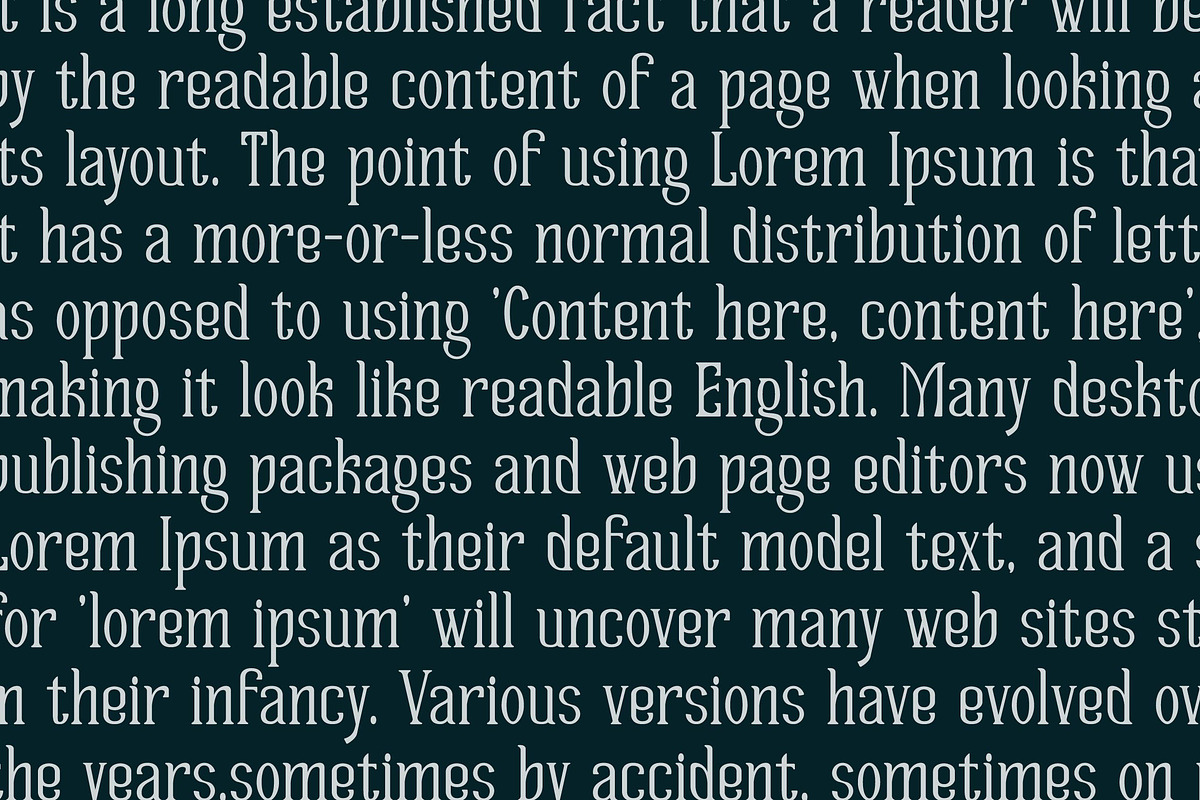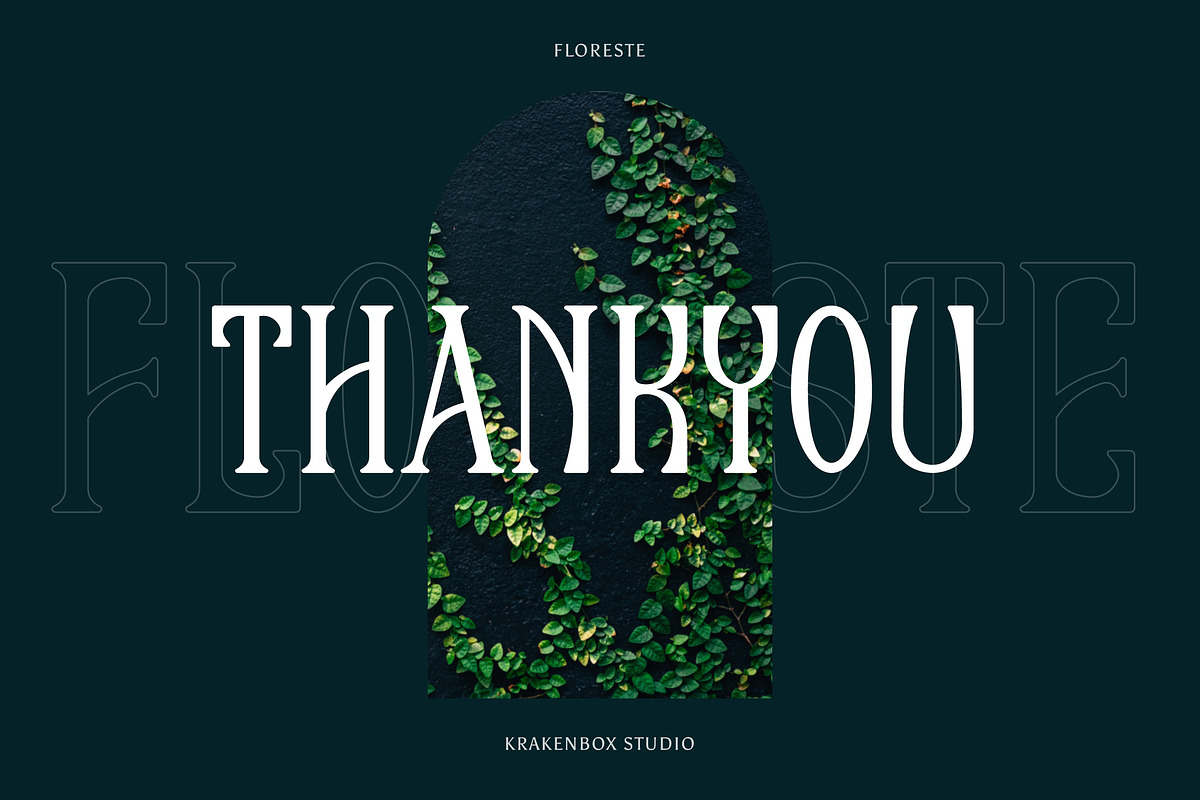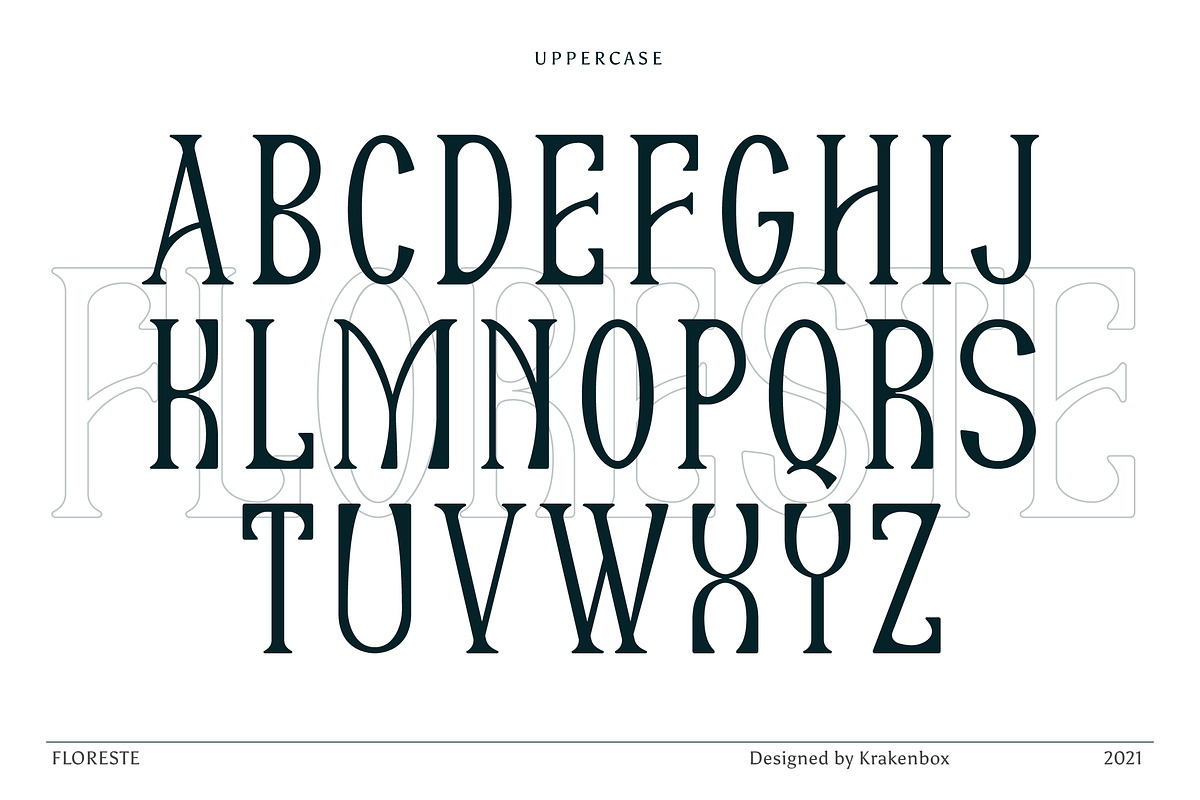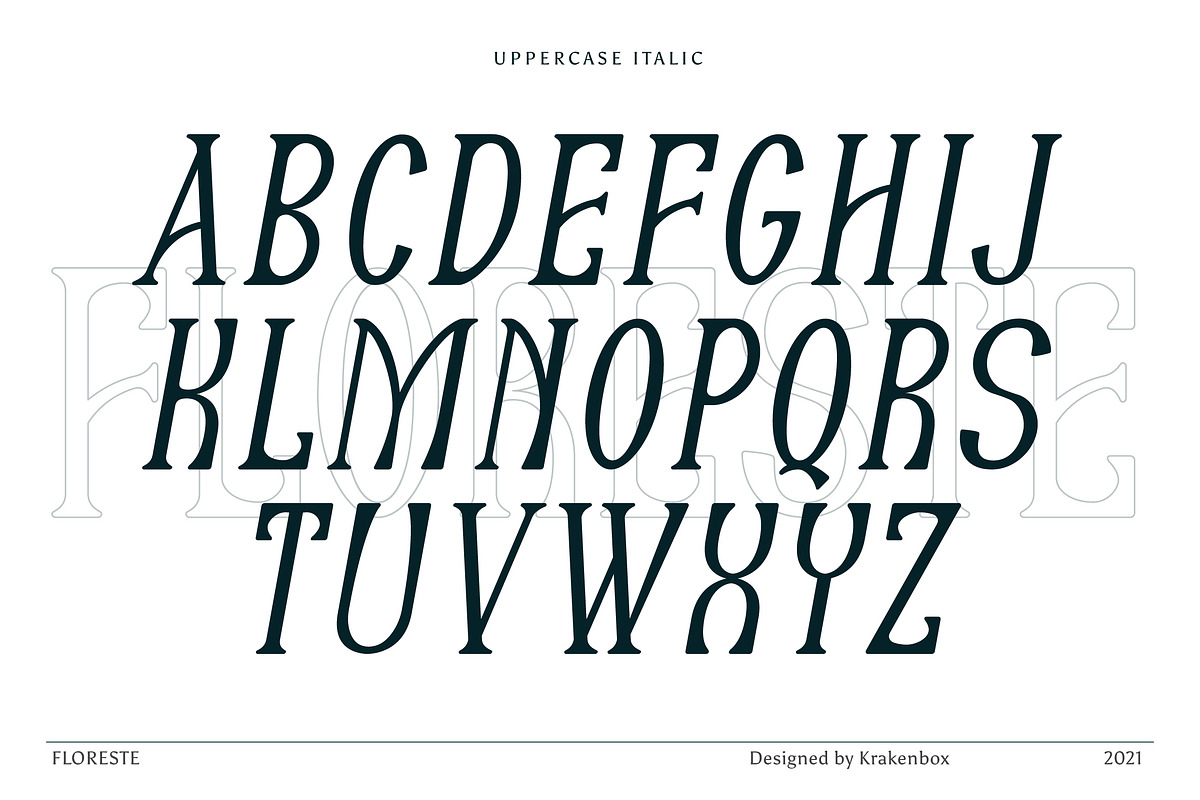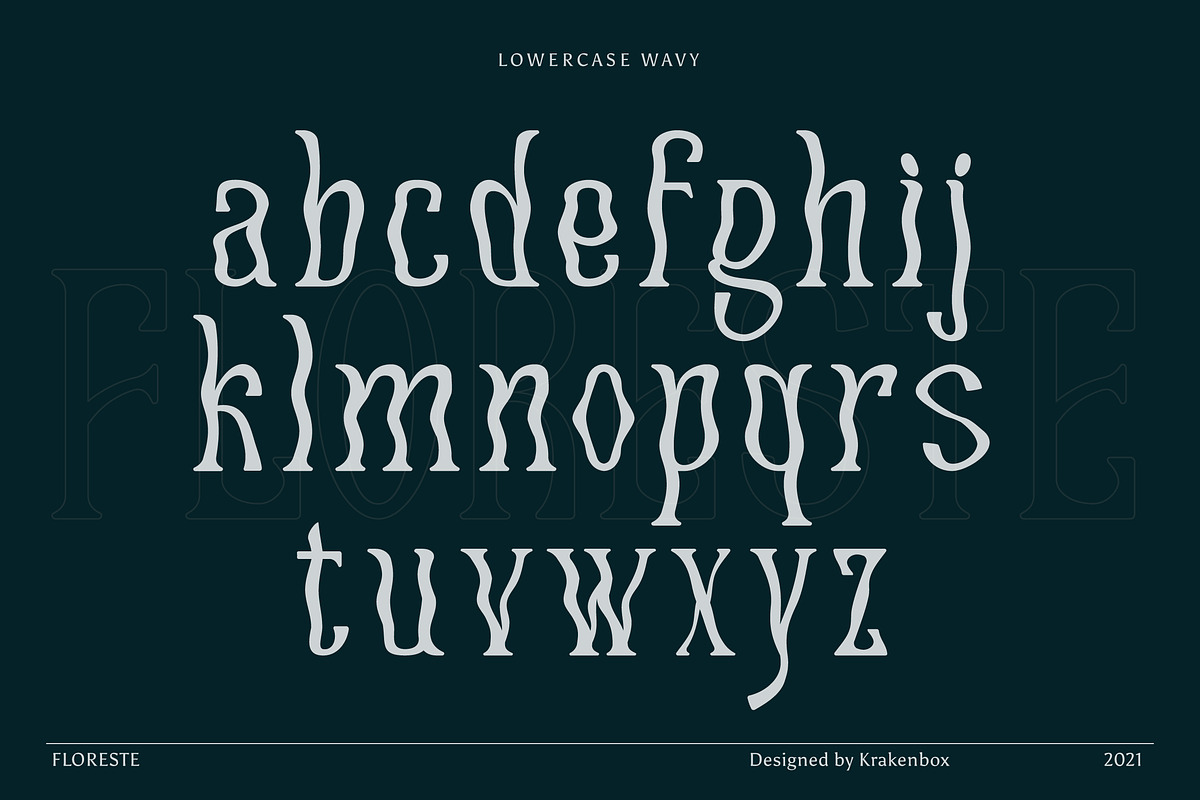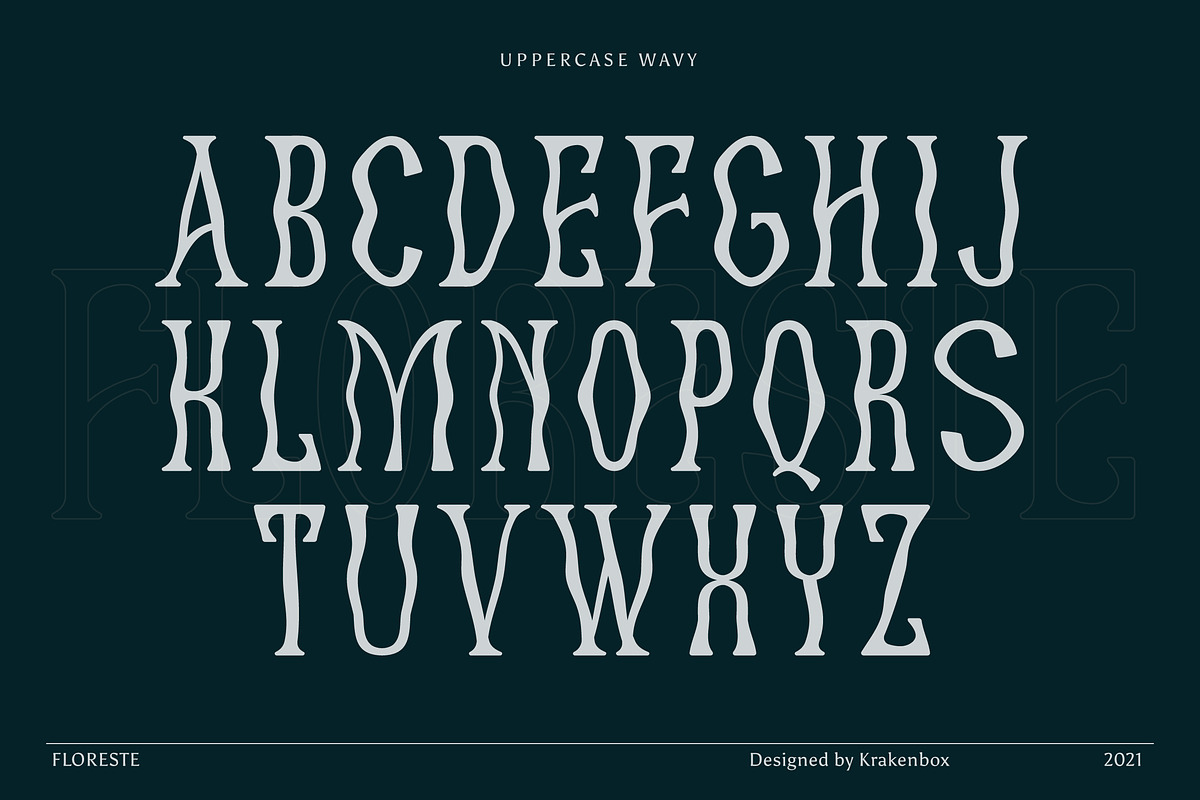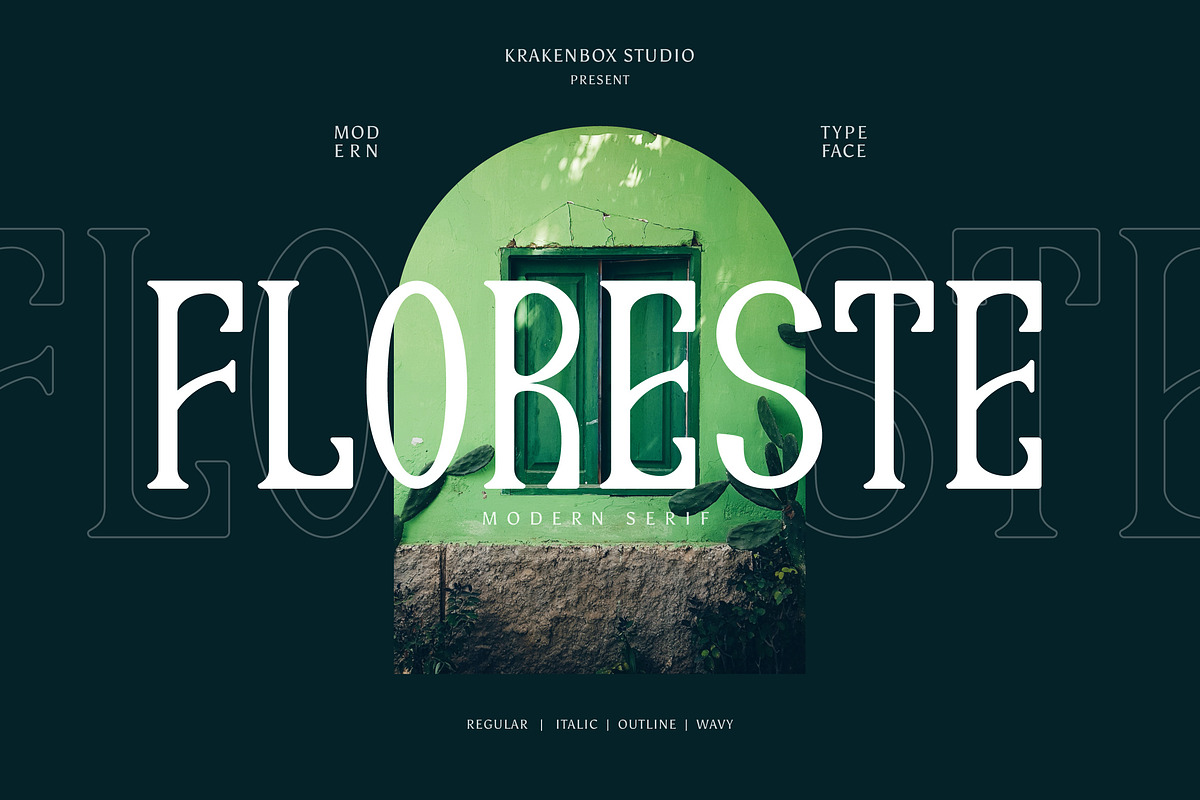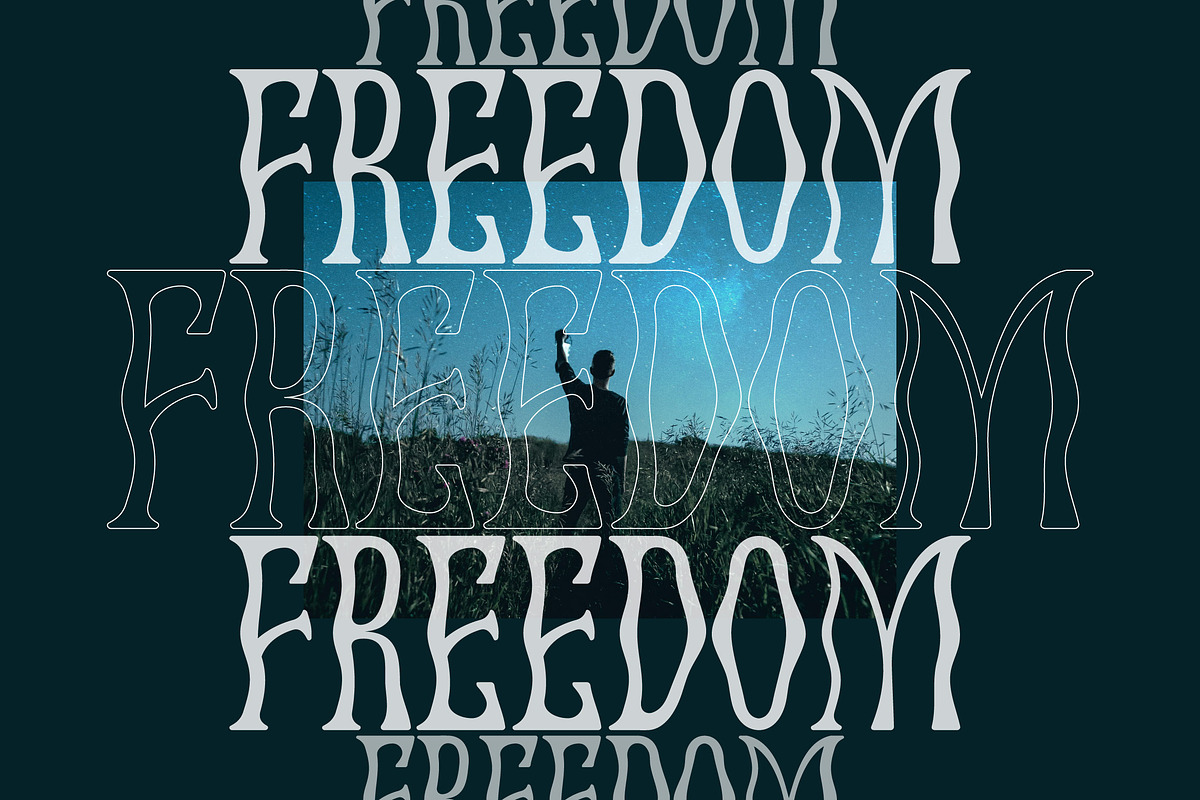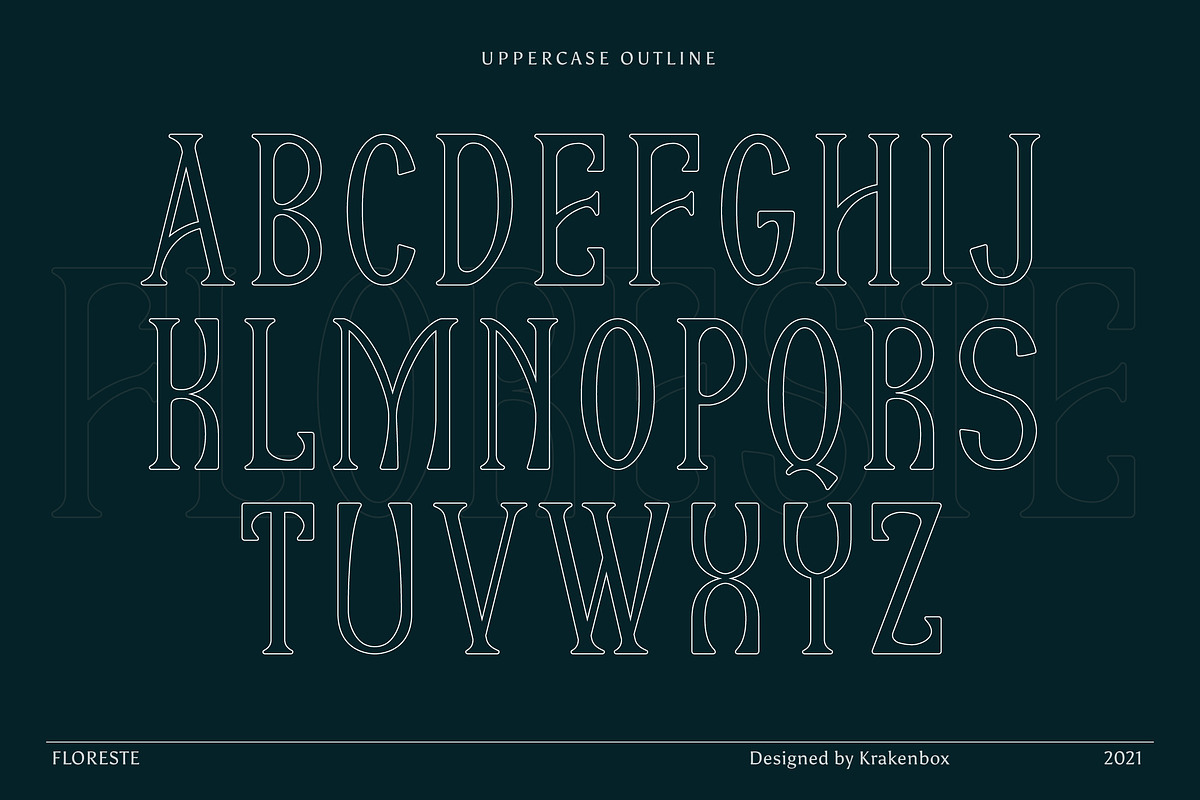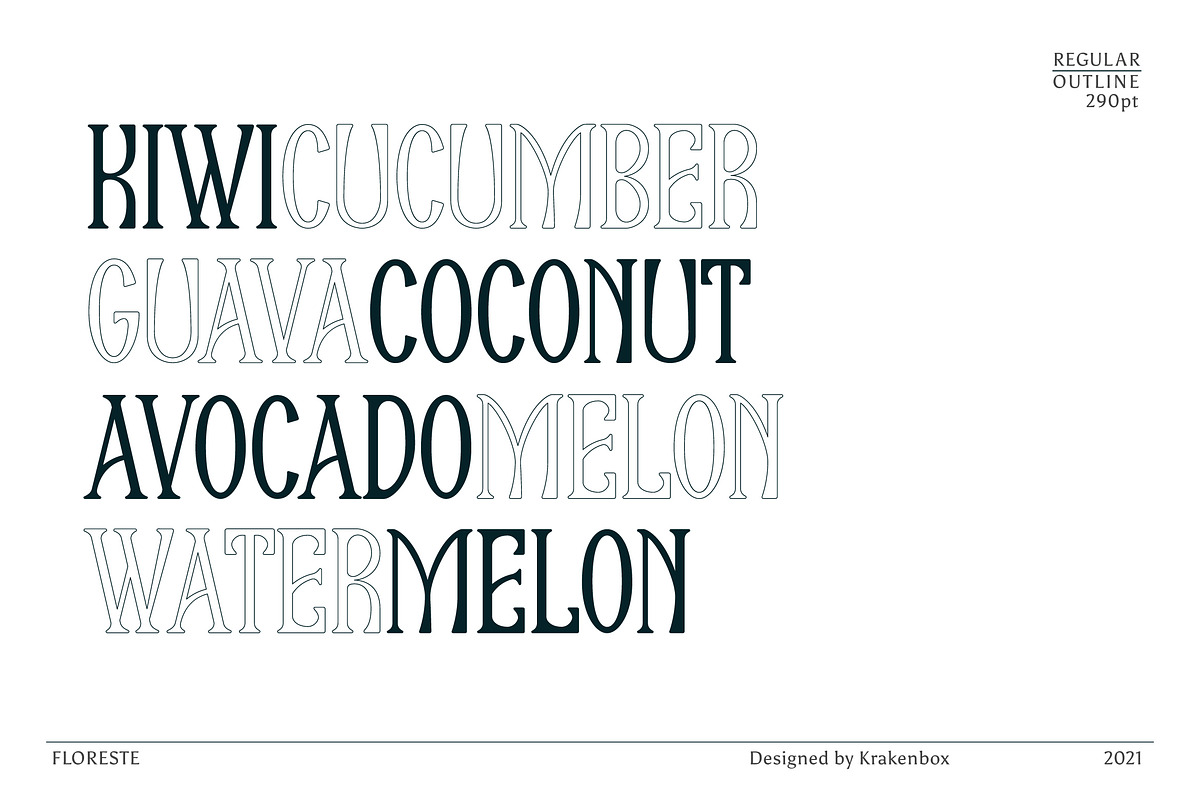
Floreste - Modern Wavy Serif
Floreste is a modern display font. Its elegant, classy, and modern look makes it a fantastic choice for fashion, apparel projects, signature, album covers logos, branding, magazines, social media posts, advertisement, and many more. Use this display font to add that special cool touch to any design idea you can think of!
- 4 Style Regular, Outline, Italic, & Wavy
- Character Set
- Floreste - Regular
- Floreste - ITalic
- Floreste - Wavy
- Floreste - Outline